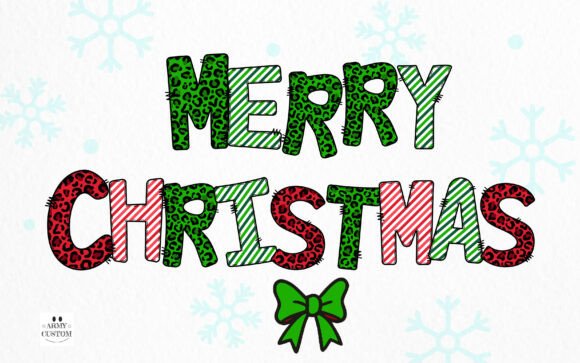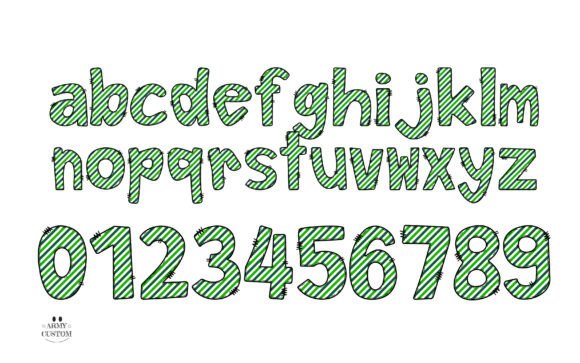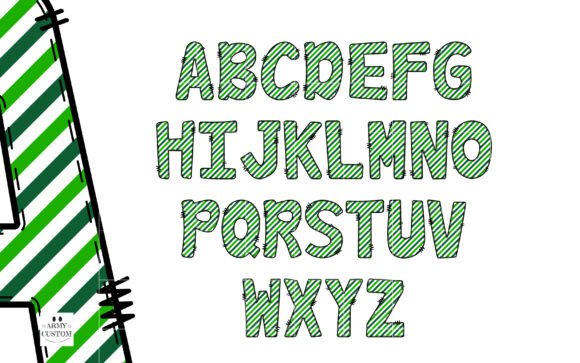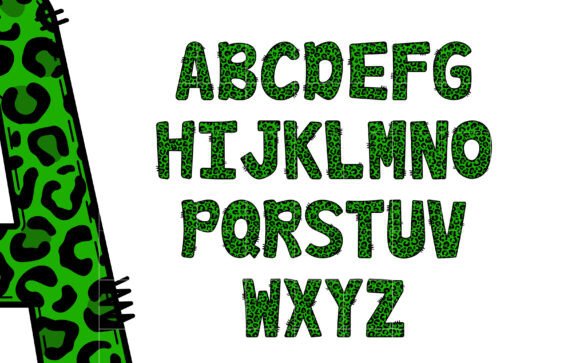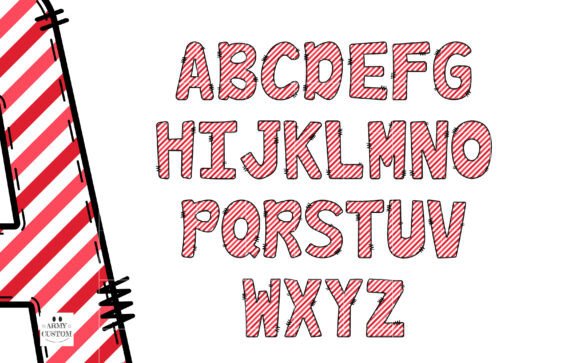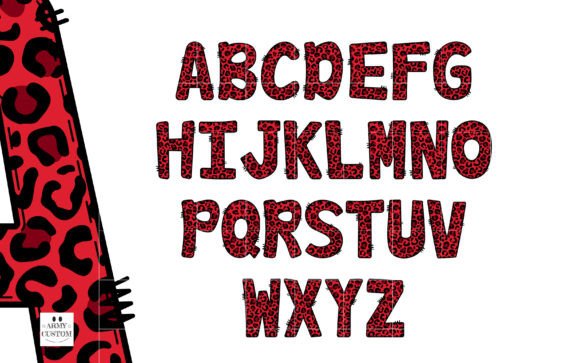
The Magic of Christmas Bundle Font: A Whimsical Addition to Your Holiday Design Toolkit
It’s that time of the year again – the season of joy, giving, and of course, designing! As a designer, I’m sure you’ve found yourself struggling to find the perfect font for your holiday projects. I recall a particularly stressful moment last year when I was working on a client’s Christmas card design, and I just couldn’t find a font that captured the whimsy and playfulness I was looking for. That was until I stumbled upon the Christmas Bundle Font. ✨
Imbued with a sense of whimsy, this Christmas 4-styled color font is a playful addition to your holiday design toolkit. Its jovial style makes it an ideal choice for creating vibrant holiday decorations or adding a dash of merriment to any design project. With the Christmas Leopard and Candy Cane Bundle Font, every letter spelled out becomes a joyous celebration, inspired by the adorable antics of Santa’s helpers.
- ✨ The font’s playful and whimsical design, perfect for holiday projects
- ✅ The 4-styled color font offers a lot of versatility and creative freedom
- 🤔 Some users might find the font a bit too playful or childish for certain projects
The Story Behind Christmas Bundle Font
The Christmas Bundle Font was designed with the holiday season in mind. The designer wanted to create a font that captured the whimsy and playfulness of the season, inspired by the adorable antics of Santa’s helpers. The result is a font that’s perfect for adding a touch of holiday cheer to any design project.